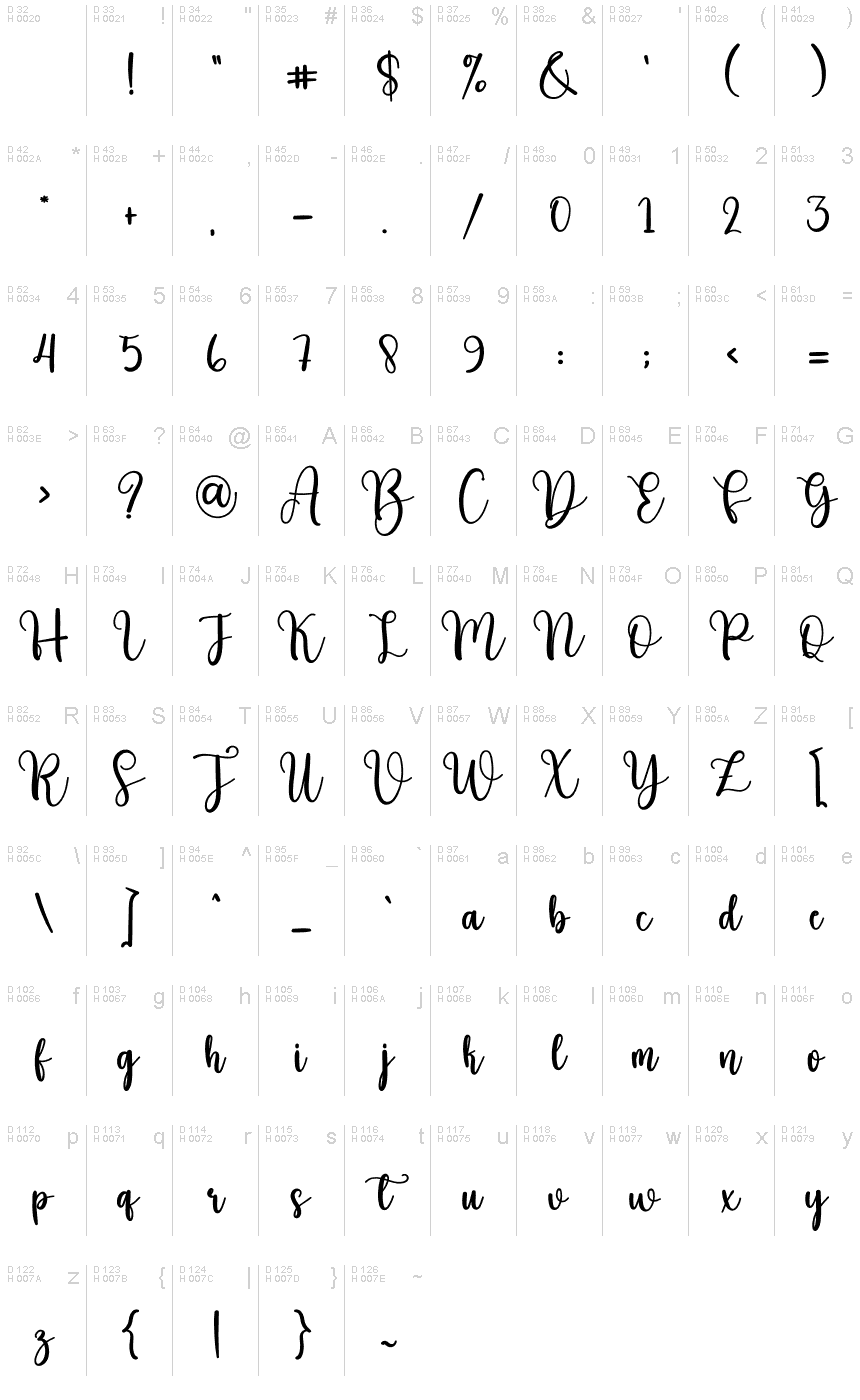
Santa Claus
The perfect font to add a festive atmosphere to your projects, Santa Claus by Inermedia Studio is a light and elegant calligraphy typeface. Suitable for anything from holiday cards to product packaging and logos, this font will bring the holiday spirit to your designs.